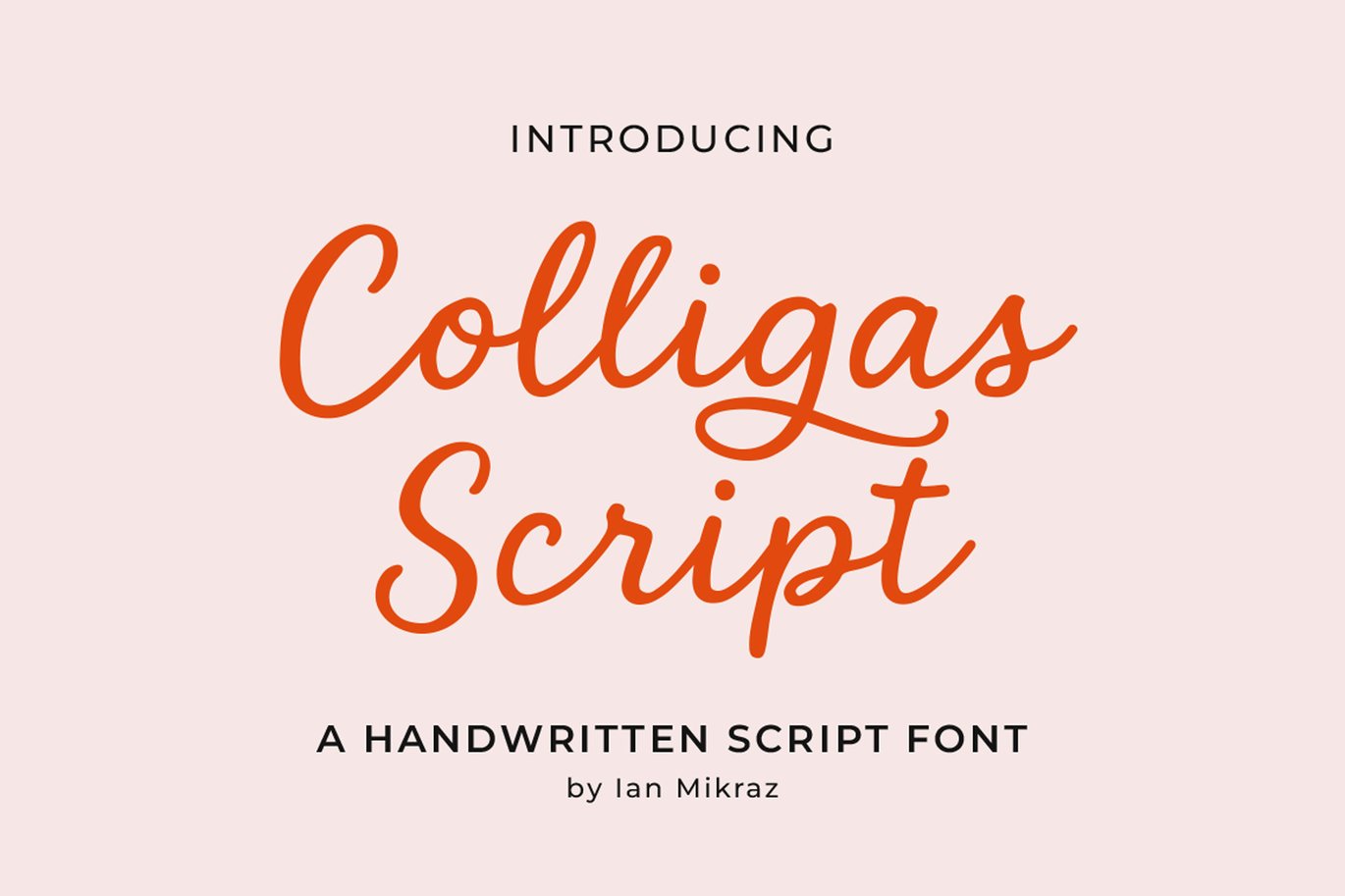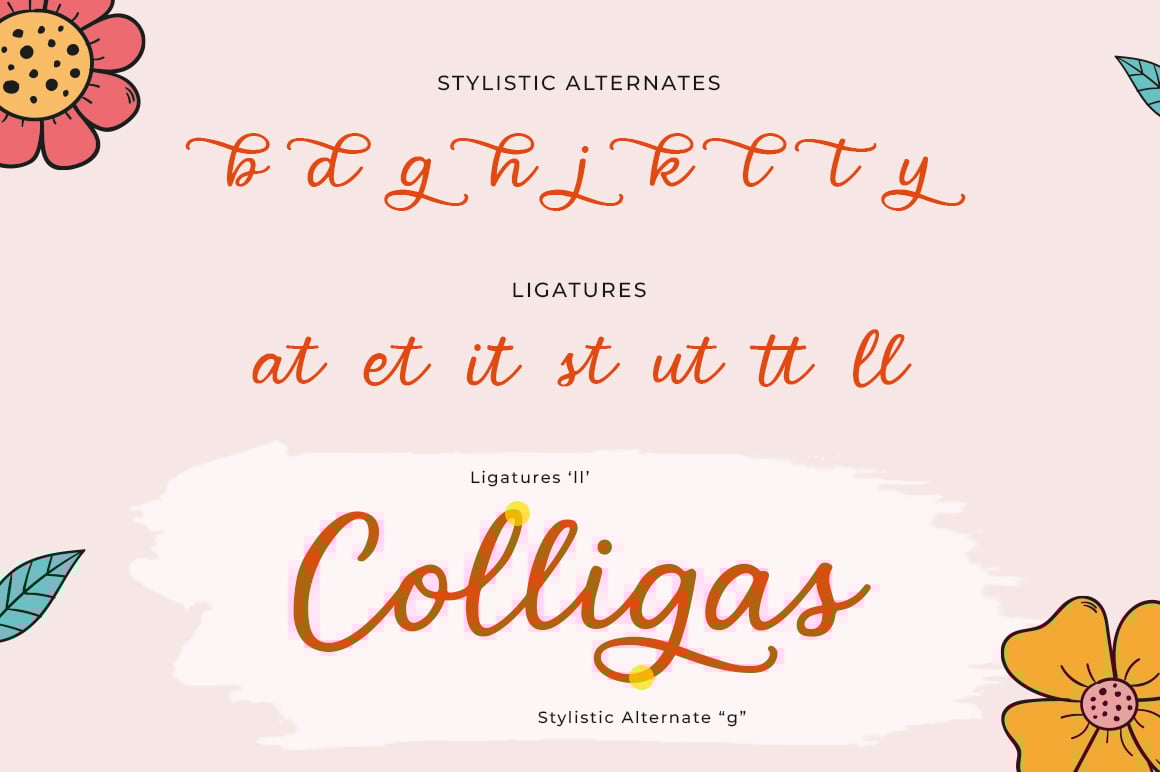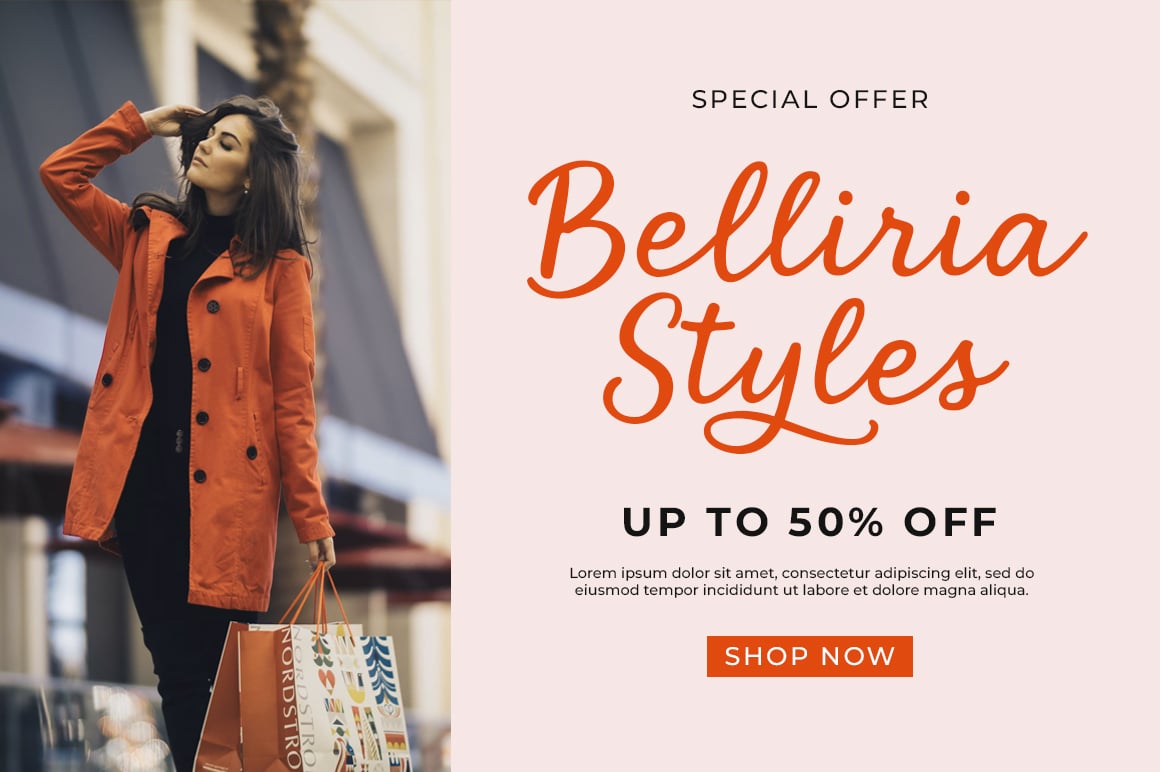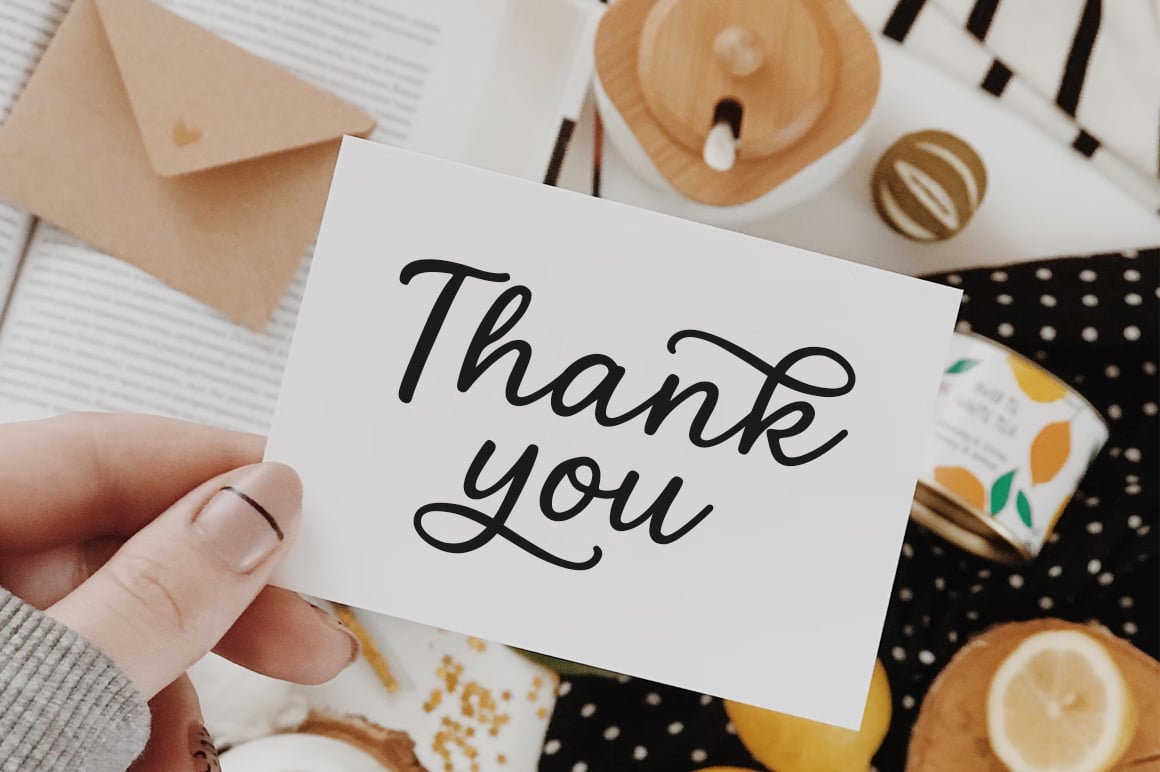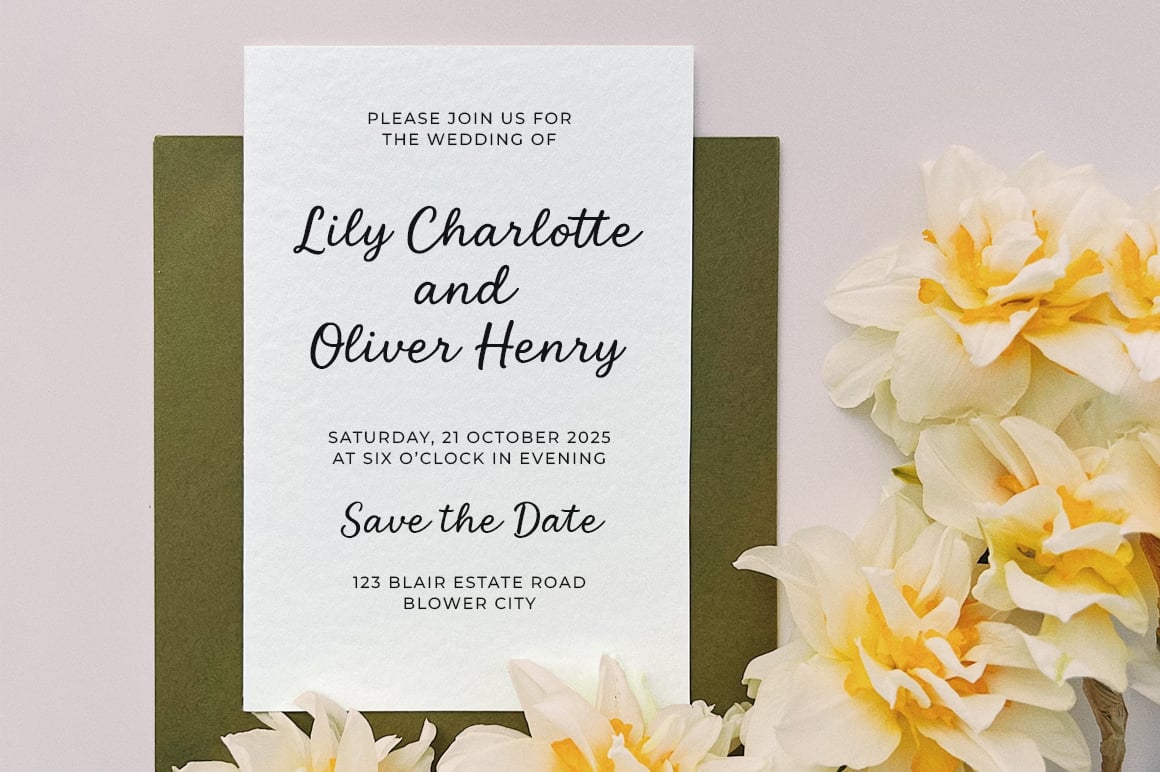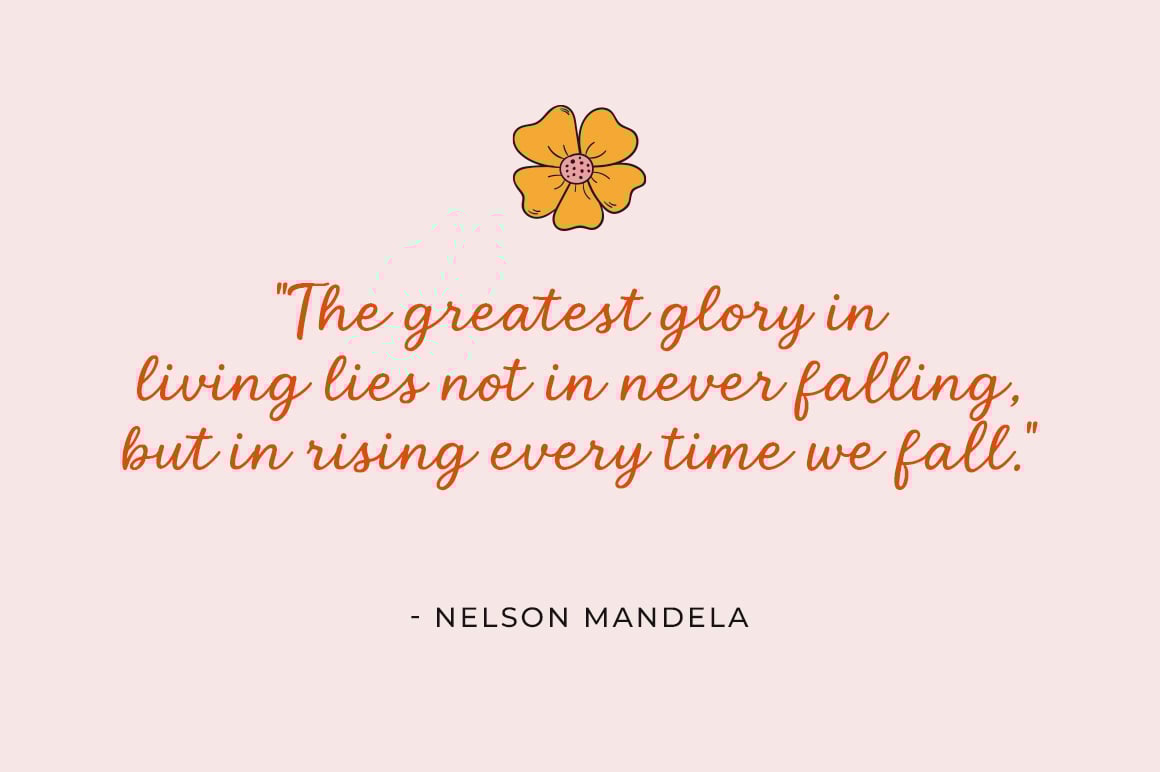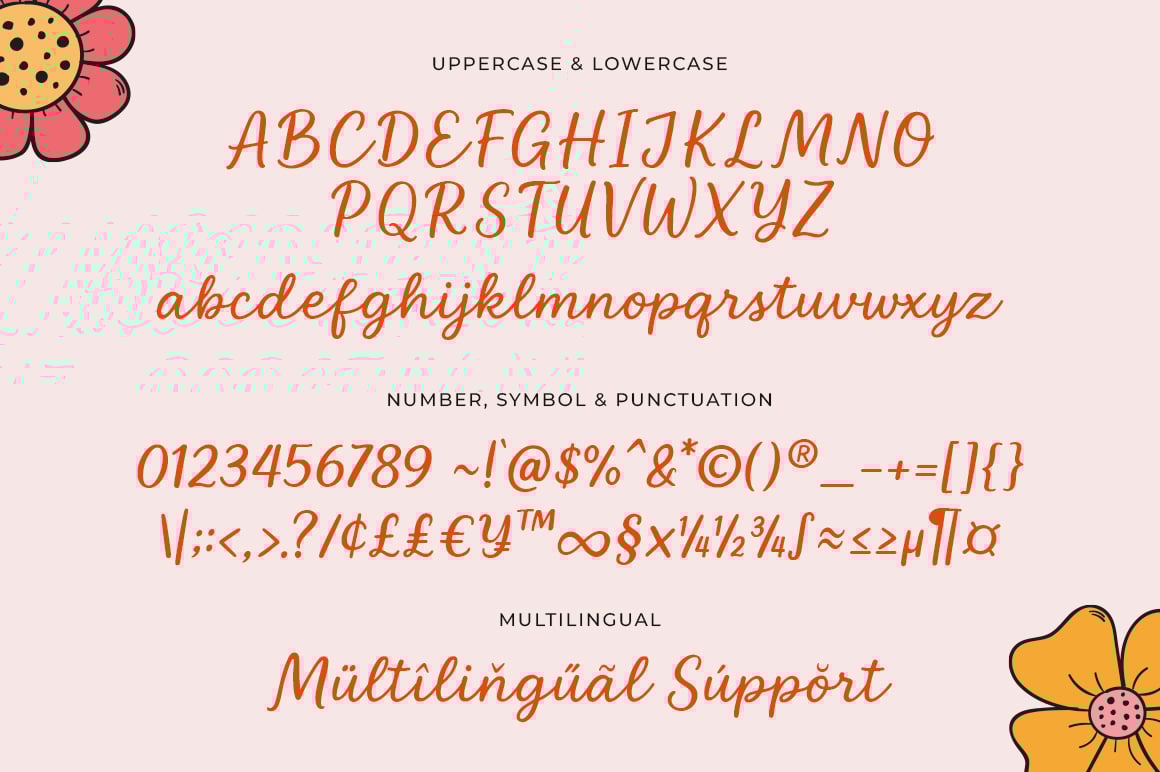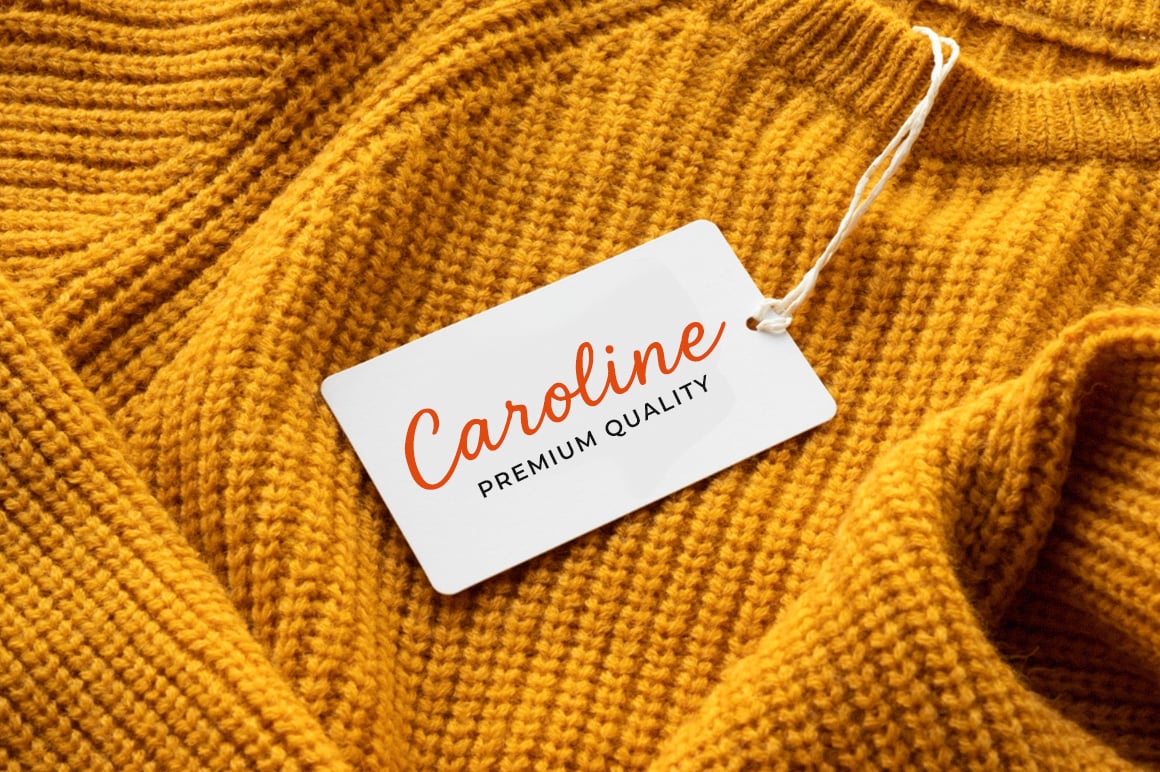
Colligas Script - Elegant Handwritten Font
Colligas Script is an elegant handwritten script font designed for branding, wedding invitations, logos, and social quotes. Smooth curves, gentle contrast, and natural letter bounce create a friendly, human touch while staying clean and highly legible—perfect for fashion, beauty, lifestyle, and craft niches.
Inside you’ll find full uppercase & lowercase, numbers, punctuation, refined kerning, useful ligatures (tt, ll, st, at, etc.), and stylistic alternates for key letters to enrich your lettering compositions. Files include OTF/TTF with multilingual Latin support, working seamlessly in Photoshop, Illustrator, InDesign, Affinity, and Canva (font upload).
Use Colligas Script to build cohesive wedding suites (save-the-date, menus, place cards), boutique and skincare logos, artisan packaging, hang tags, and Instagram posts. Optimized for both headlines and small text sizes, this font delivers polished, professional results with minimal effort.
• Stylistic Alternates
• Standart ligatures